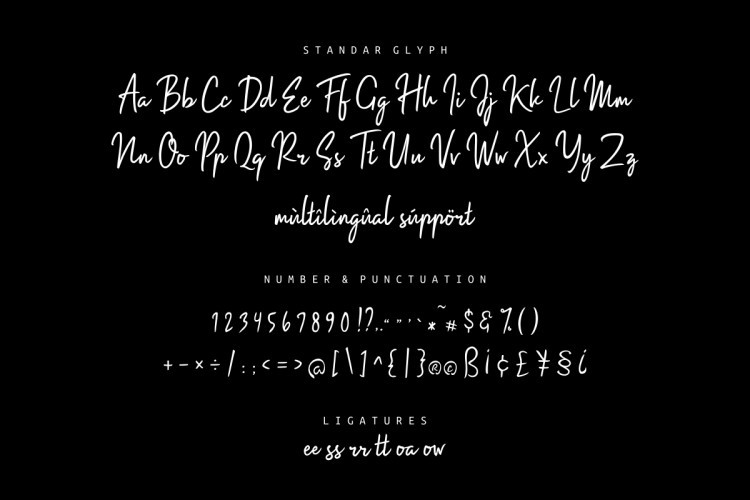
Impossible Script Font
Impossible Script – Demo Font
Hello, friends. “Impossible Font” is script type with handwitten style, is a new elegant signature style font which gives any design project that authentic handwritten feel. It’s designed and shared by Ghuroba Studio. It’s a light and charming handwritten font with incredible style. Get inspired by its modern simplicity. It’s a handwritten font with 2 style regular and italic. It’s perfect for logos & branding, photography, invitation, watermark, advertisements,product designs, stationery, label ,product packaging, special events or anything that need handwritting taste.